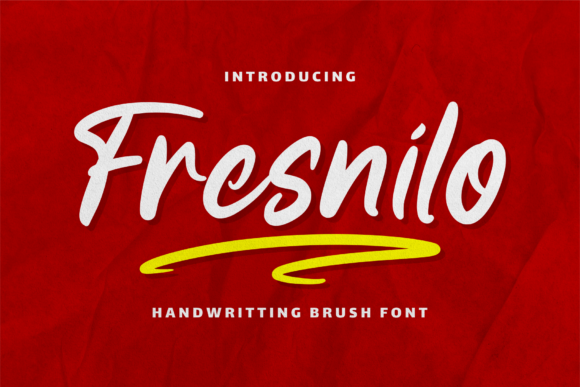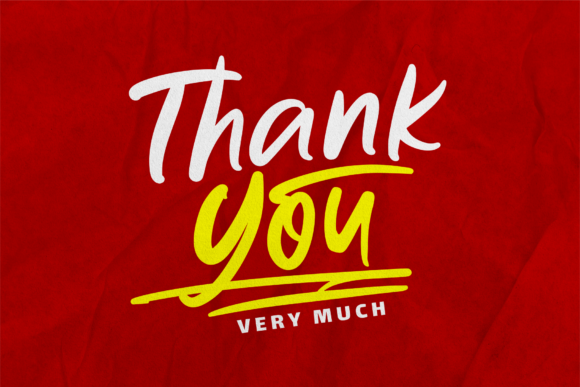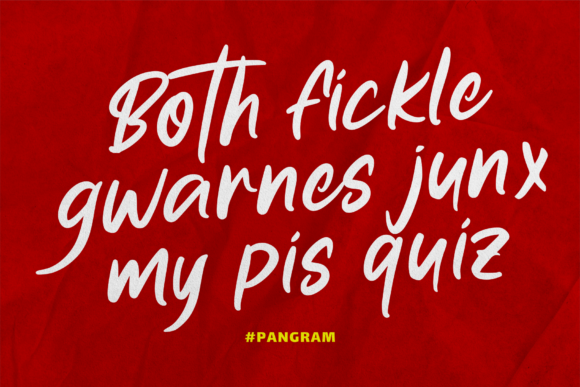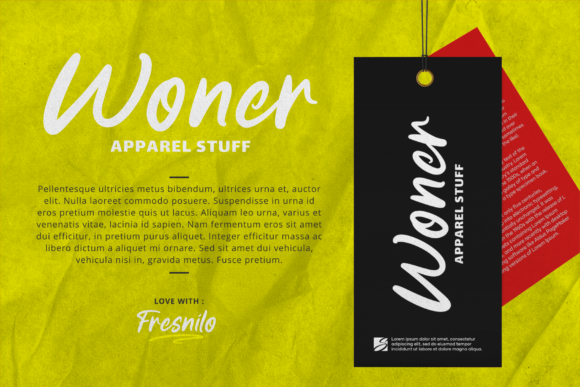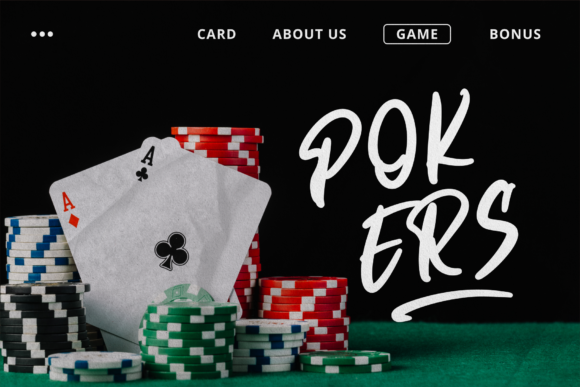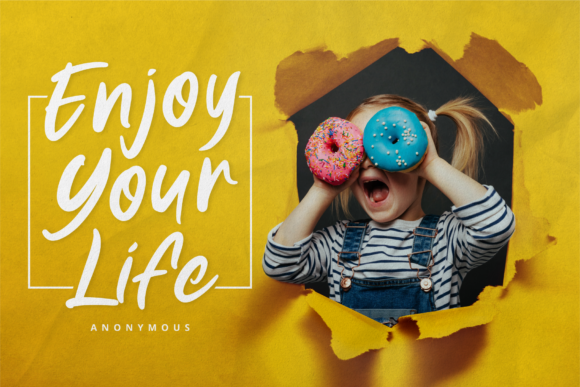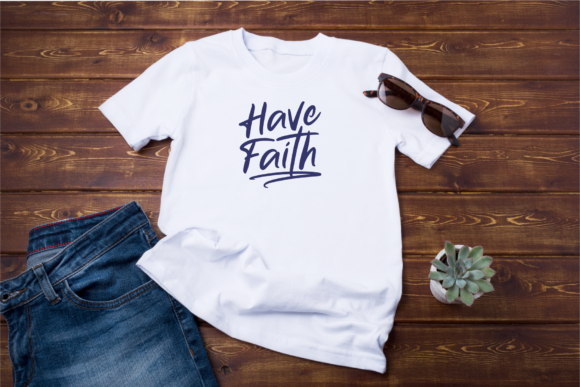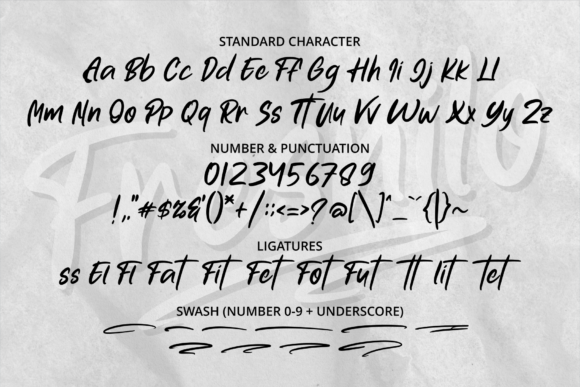
Fresnilo Font
Fresnilo is a simple and thick lettered brushed handwritten font. This font reads as strong, confident, and dynamic and can add tons of nostalgic character to your designs.